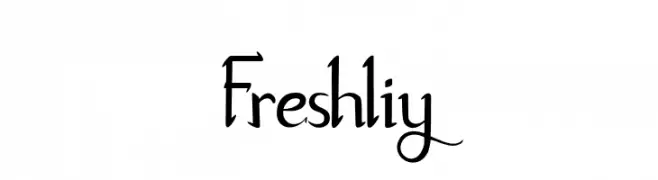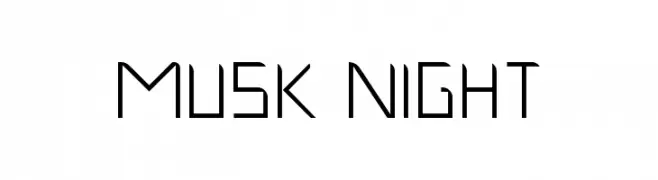
A decorative and artistic font with elongated, curved elements and intricate details.
A modern, geometric font with clean lines and sharp angles.
A whimsical and quirky font with playful curves and uneven strokes.
A bold, decorative font with elegant serifs and playful curves.
A bold, italicized font with a modern and dynamic style.
A bold, decorative serif font with intricate details and flourishes.
A playful, handwritten script font with rounded, dynamic characters.
An elegant and flowing script font with intricate loops and swashes.
An artistic, calligraphic font with dynamic serifs and elegant flourishes.
A geometric and futuristic font with clean lines and angular shapes.